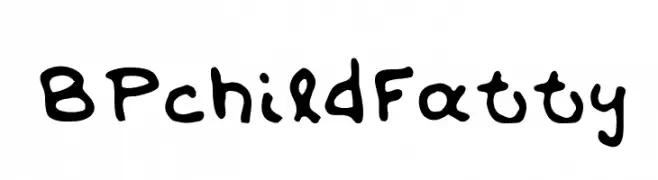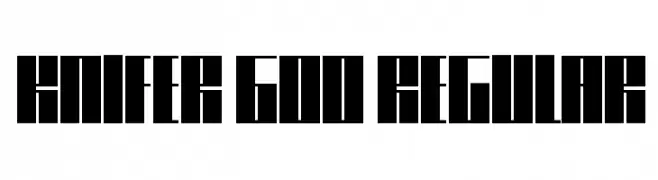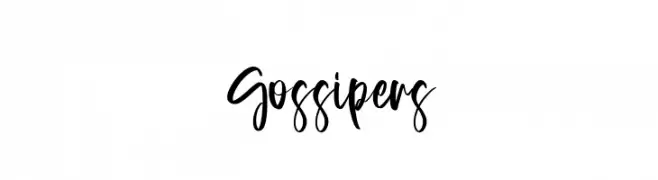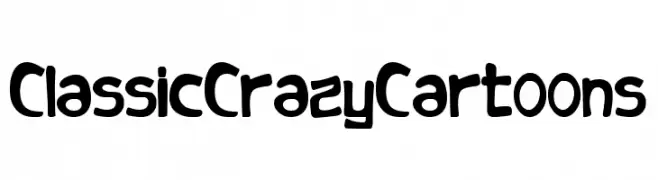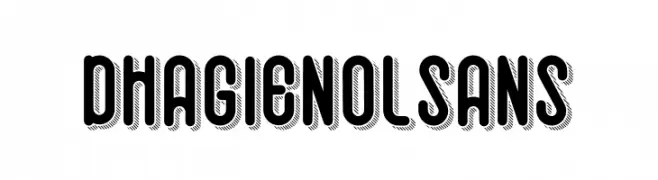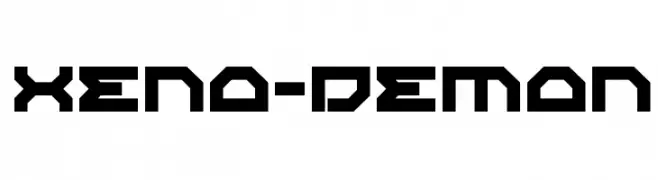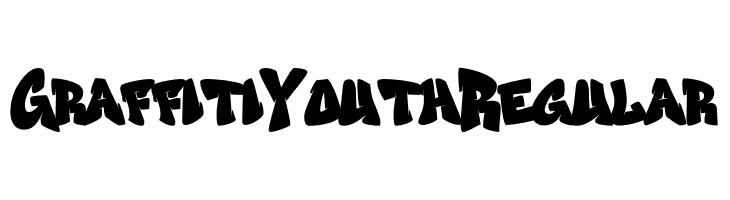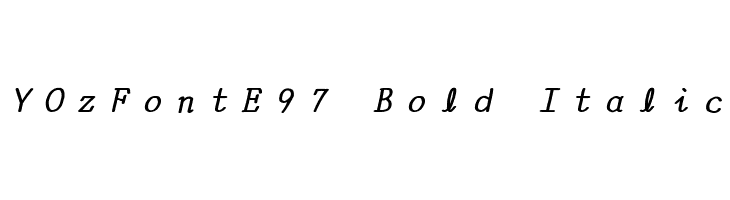
A playful, bold handwritten font with a childlike charm.
A bold, geometric font with a blocky, modern design.
A lively, expressive handwritten font with dynamic strokes and a playful style.
A bold, brush-style font with dynamic and expressive strokes.
A collection of stylized animal and mythical creature silhouettes with tribal and indigenous art influences.
A bold, playful font with a cartoonish, hand-drawn style.
A bold, shadowed font with a three-dimensional effect, perfect for striking designs.
A bold, futuristic font with angular, geometric shapes and a tech-inspired aesthetic.
A modern, elegant font with clean lines and balanced structure.
A bold, geometric font with modern and decorative elements, featuring high contrast and unique looped structures.